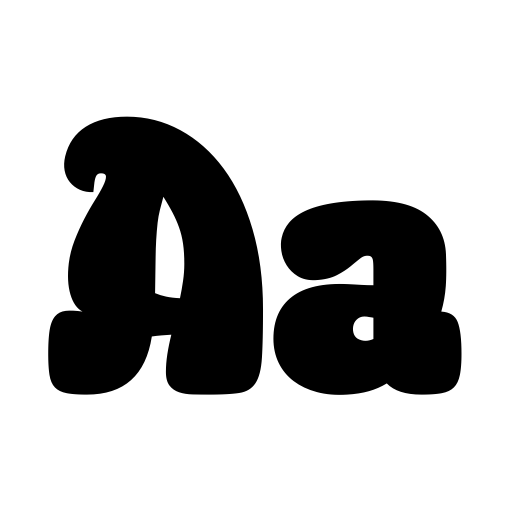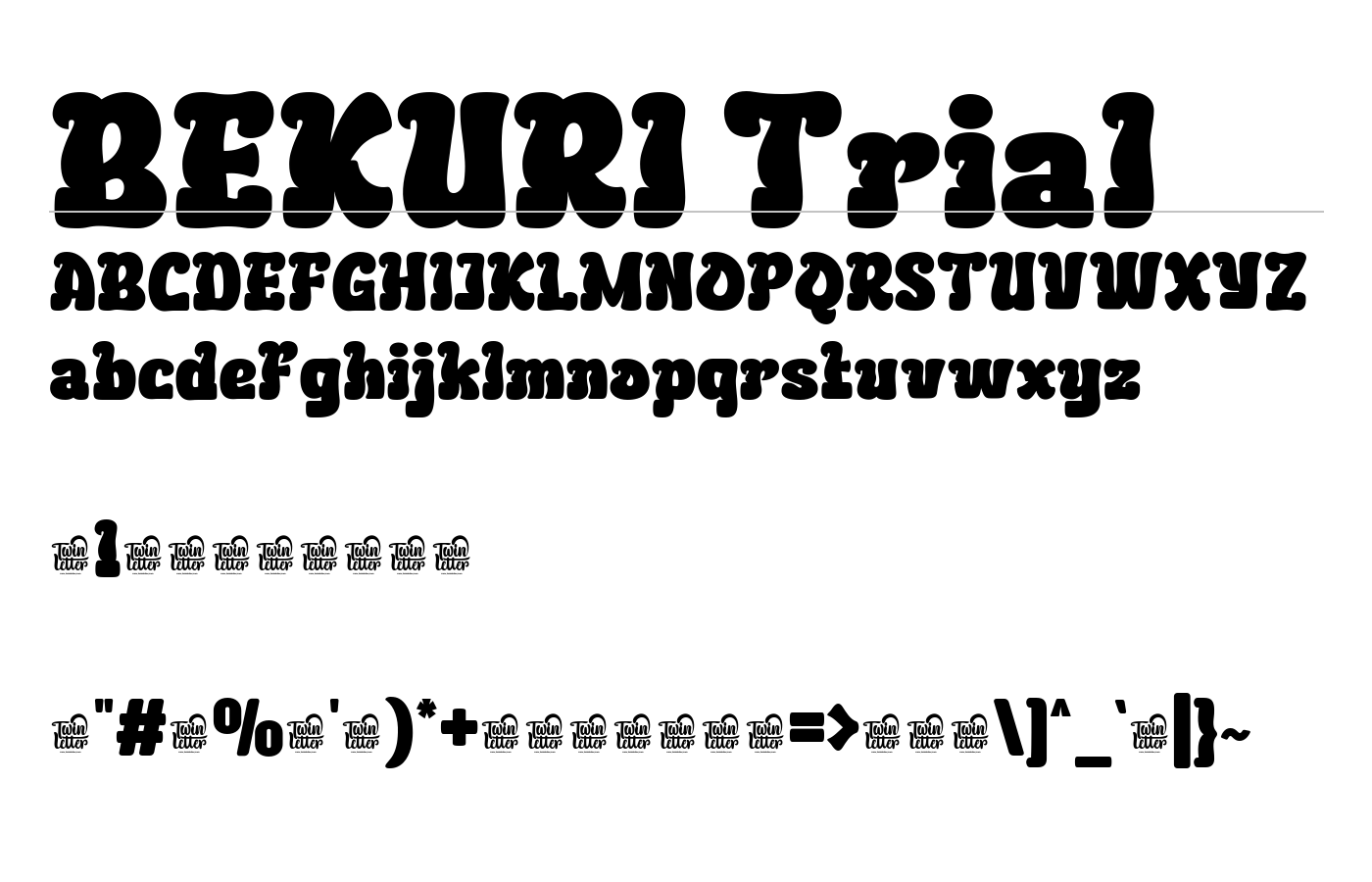
BEKURI Trial Font is a playful and bold slab serif typeface featuring thick, rounded serifs and a strong, chunky presence. Its high contrast between strokes and quirky, soft curves add a friendly yet striking personality, making it ideal for eye-catching headlines, posters, and branding projects that want to convey fun and creativity. This font shines where impact and character are needed, especially in designs targeting a youthful or casual audience.
BEKURI Trial Font
About BEKURI Trial Font
| Font family | BEKURI Trial Font |
| Designer | Ojak |